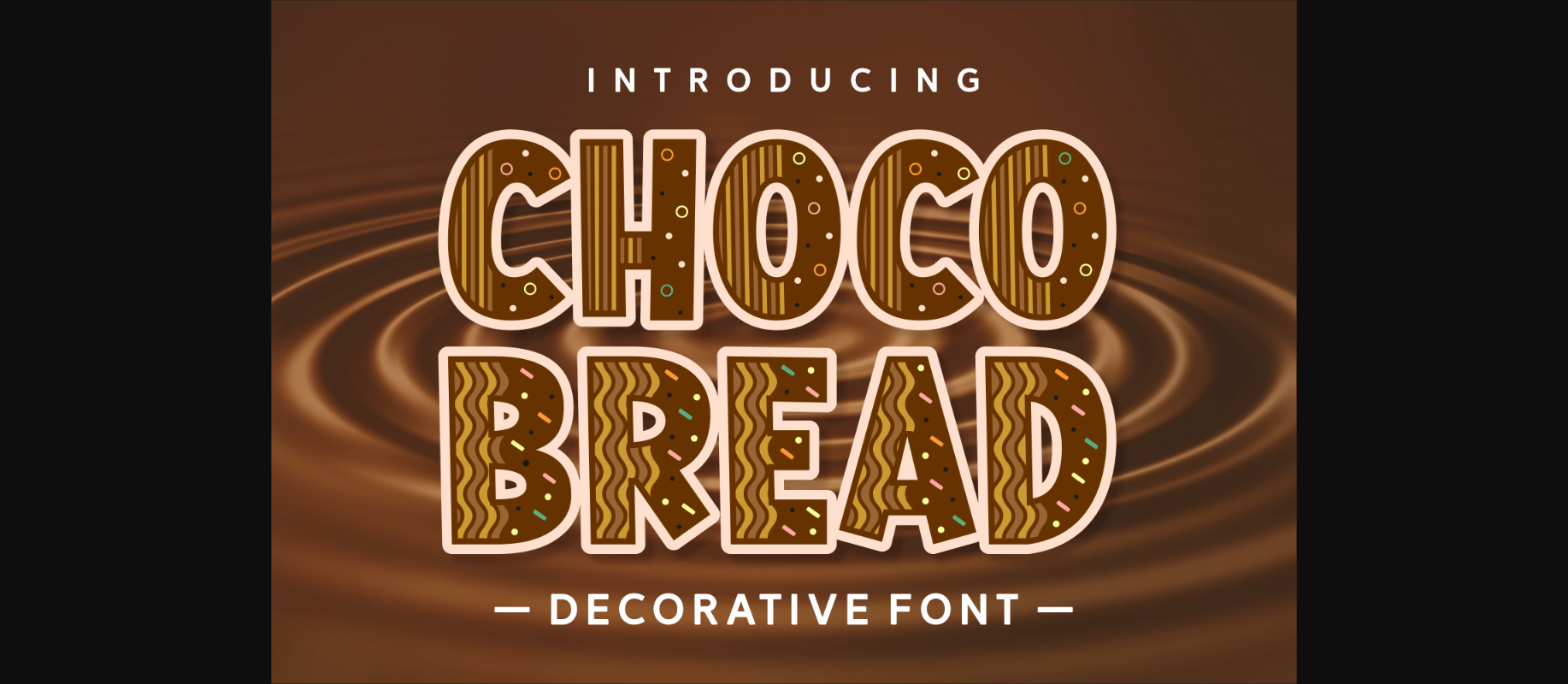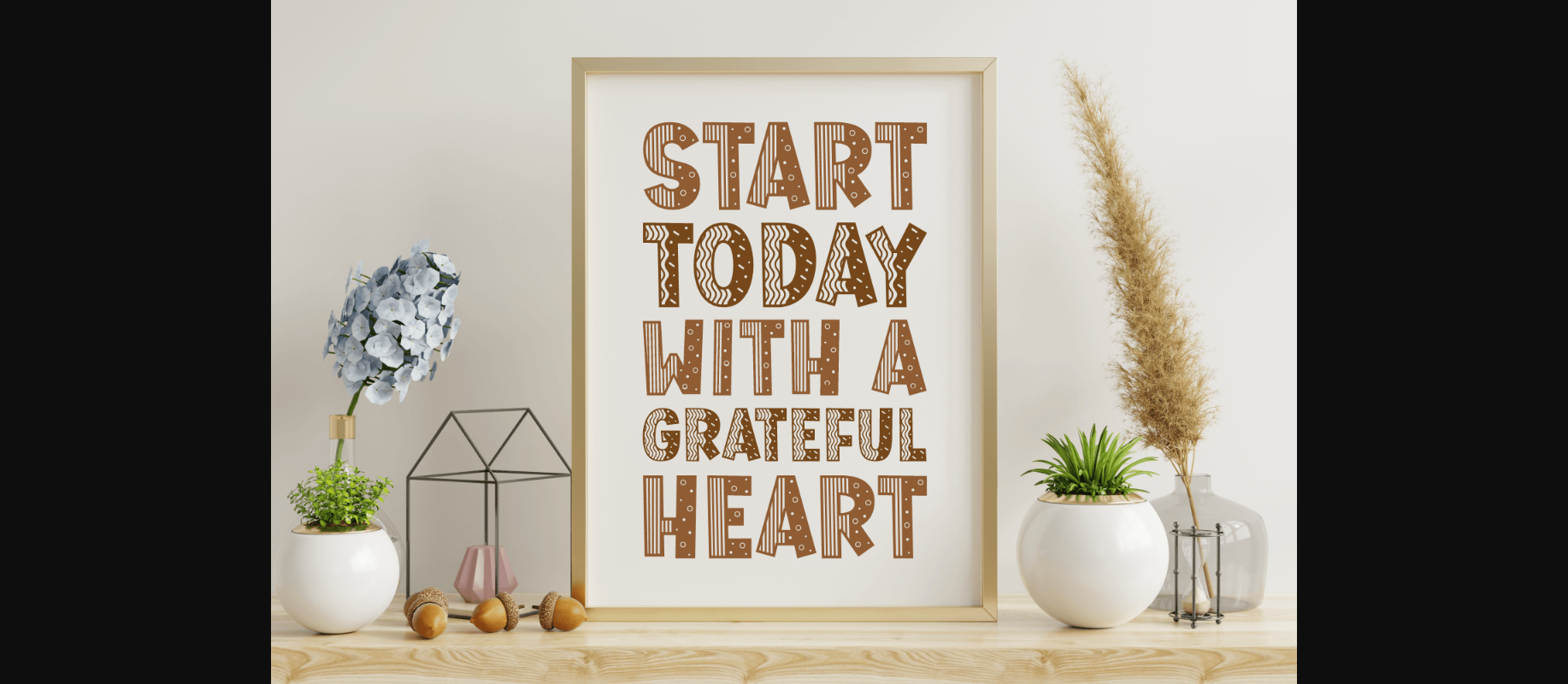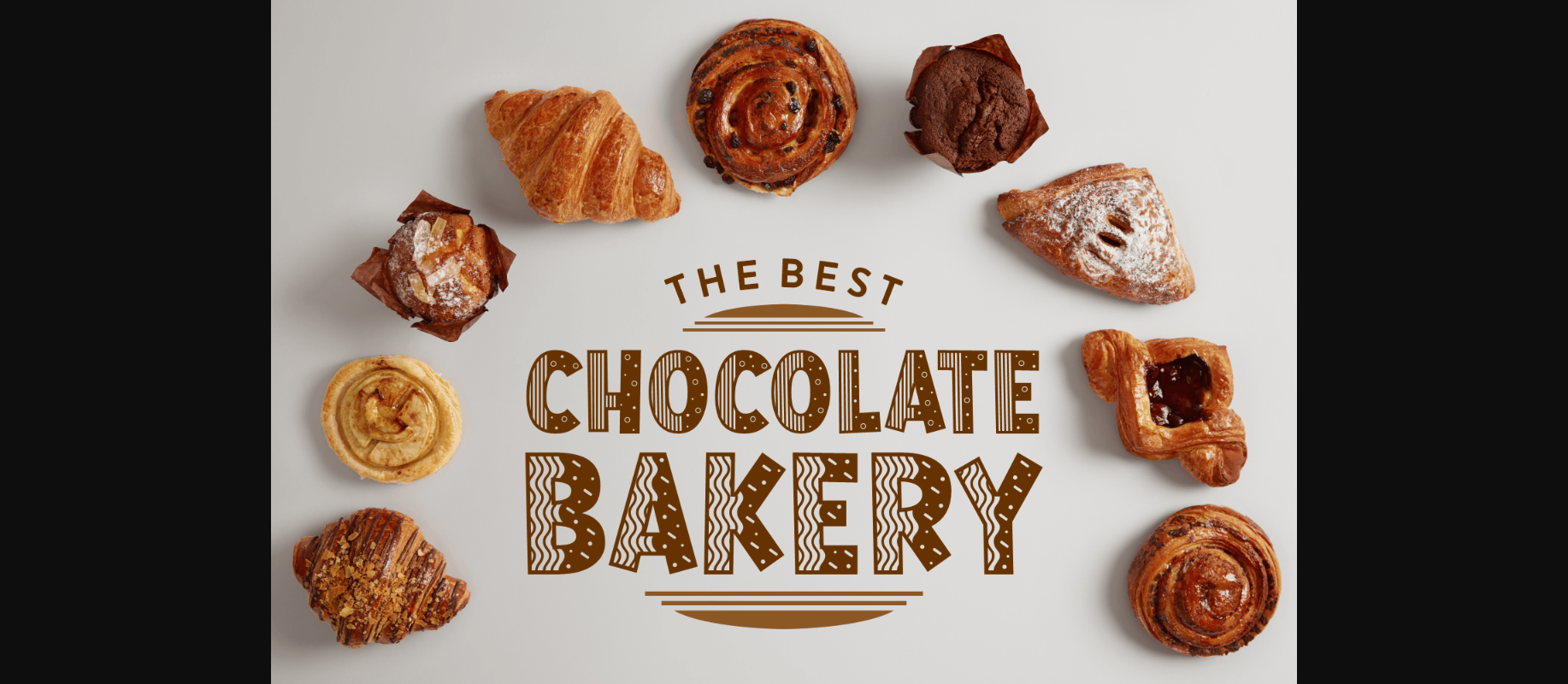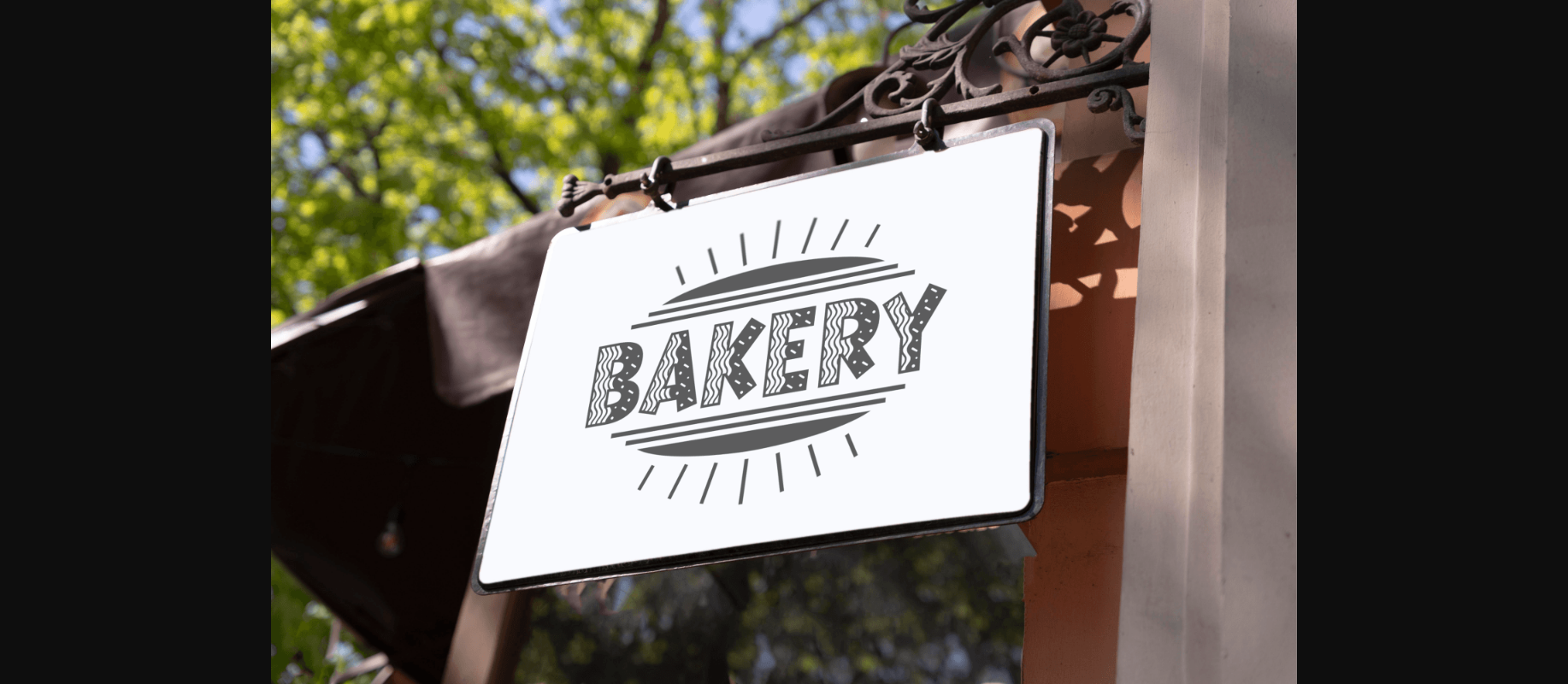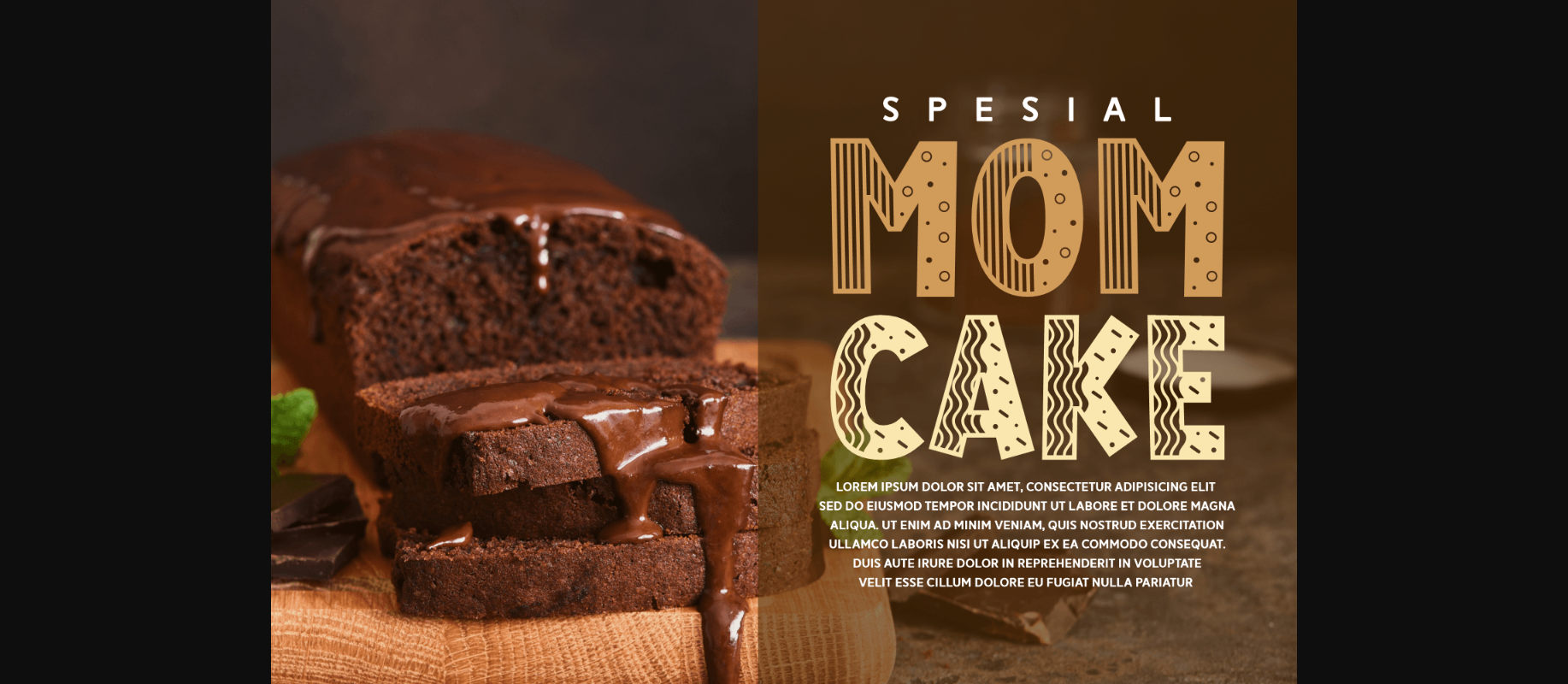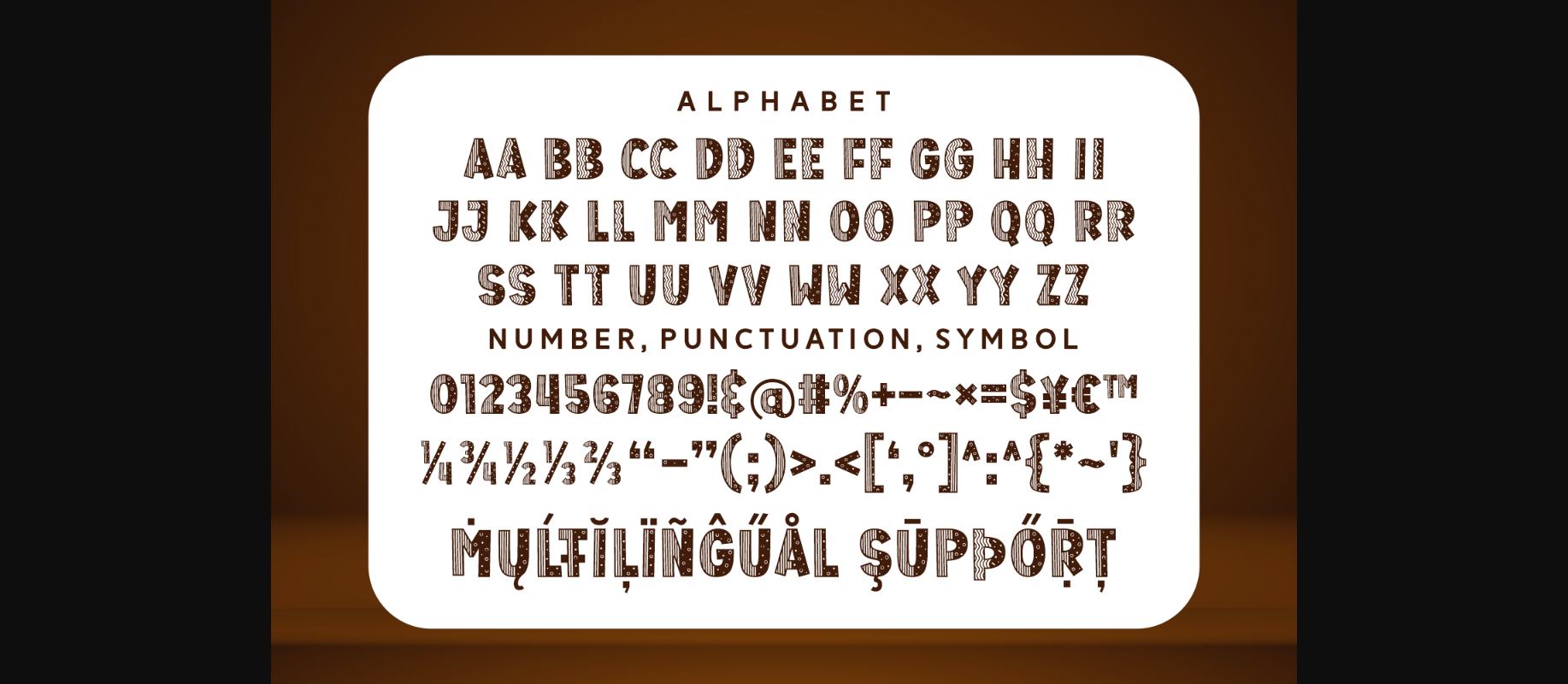
Choco Bread Font
About Choco Bread Font
Choco Bread is a cute and delicious-looking decorative font. With its wavy lines and sprinkles pattern, this font features everything you need to help you in creating lovely typography designs! Use it for crafting projects, kid-friendly designs, branding, logos, wall art, web graphics, and many more.